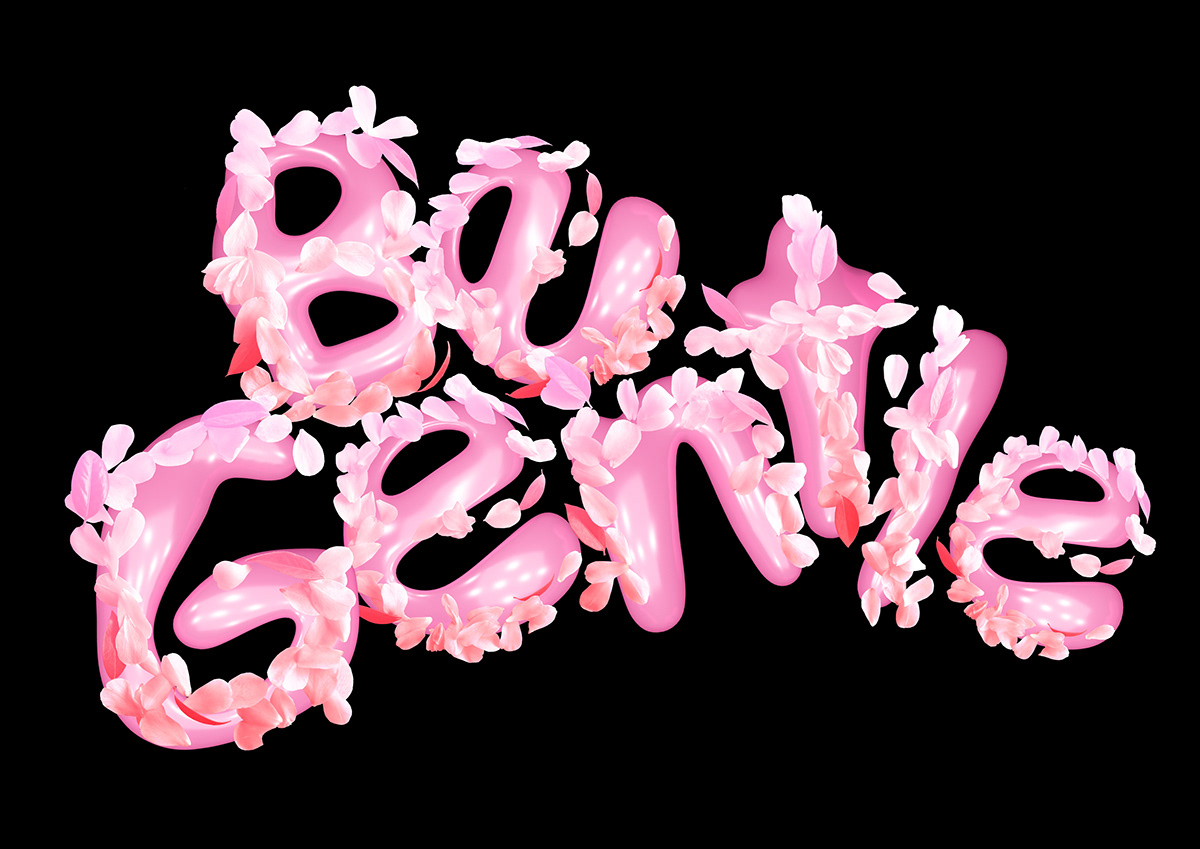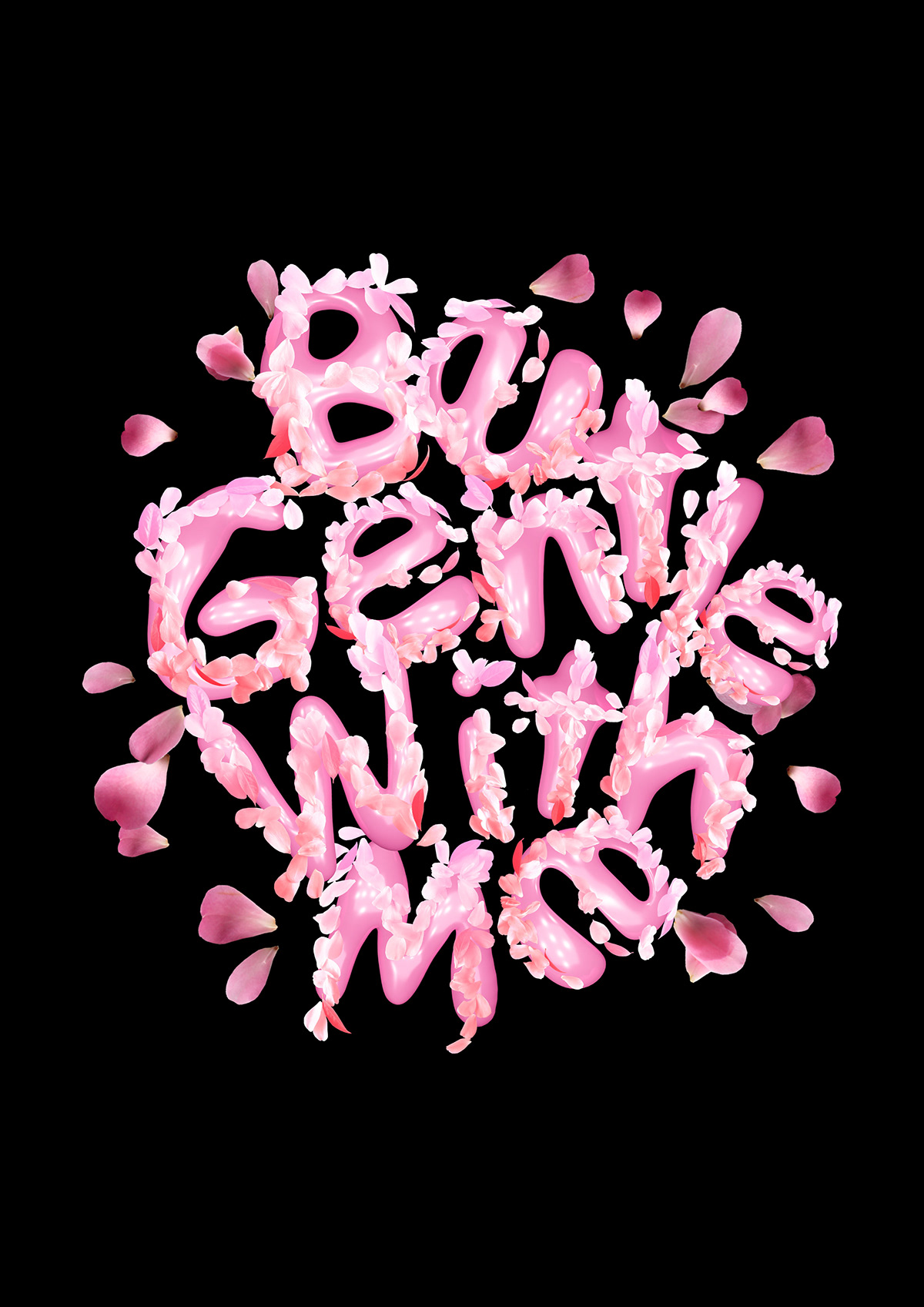
Presenting my latest typeface, Gentle. Gentle is a sensitive font that is very personal to me. Gentle is an intricate, delicate and thoughtful flower petal font that has been picked from my own garden and arranged by hand.